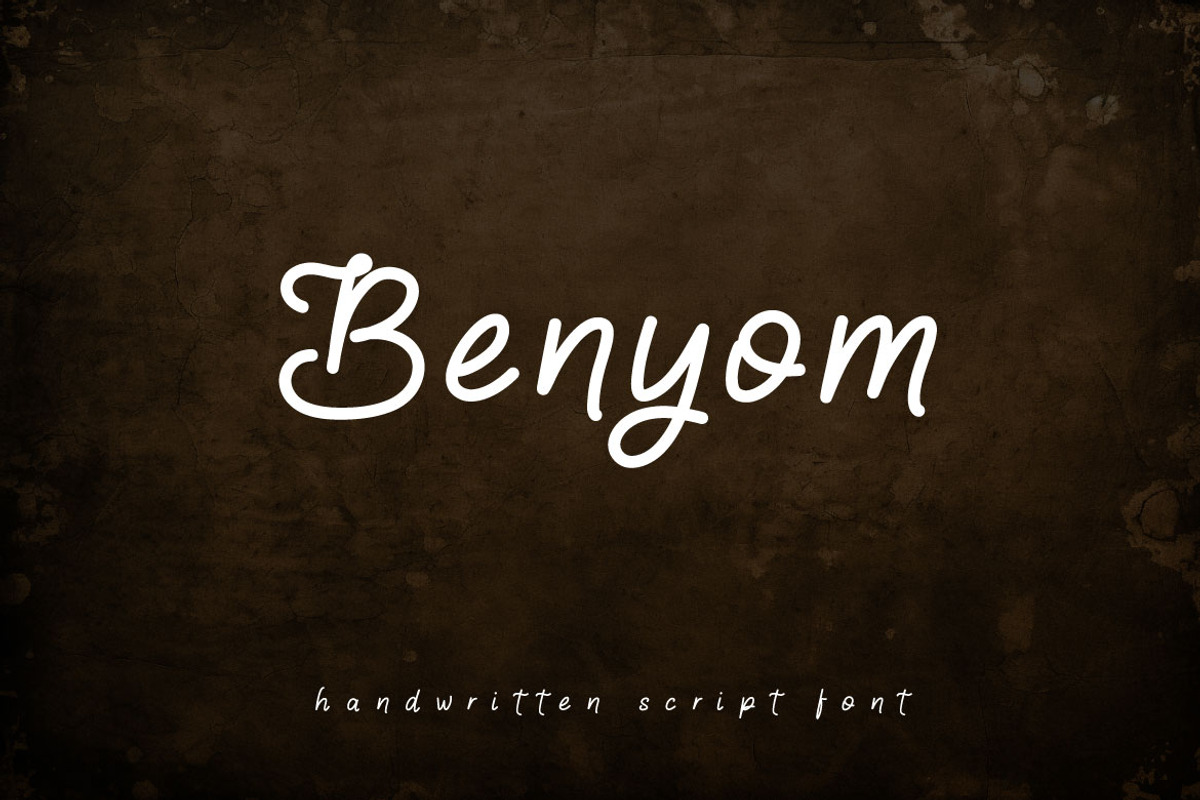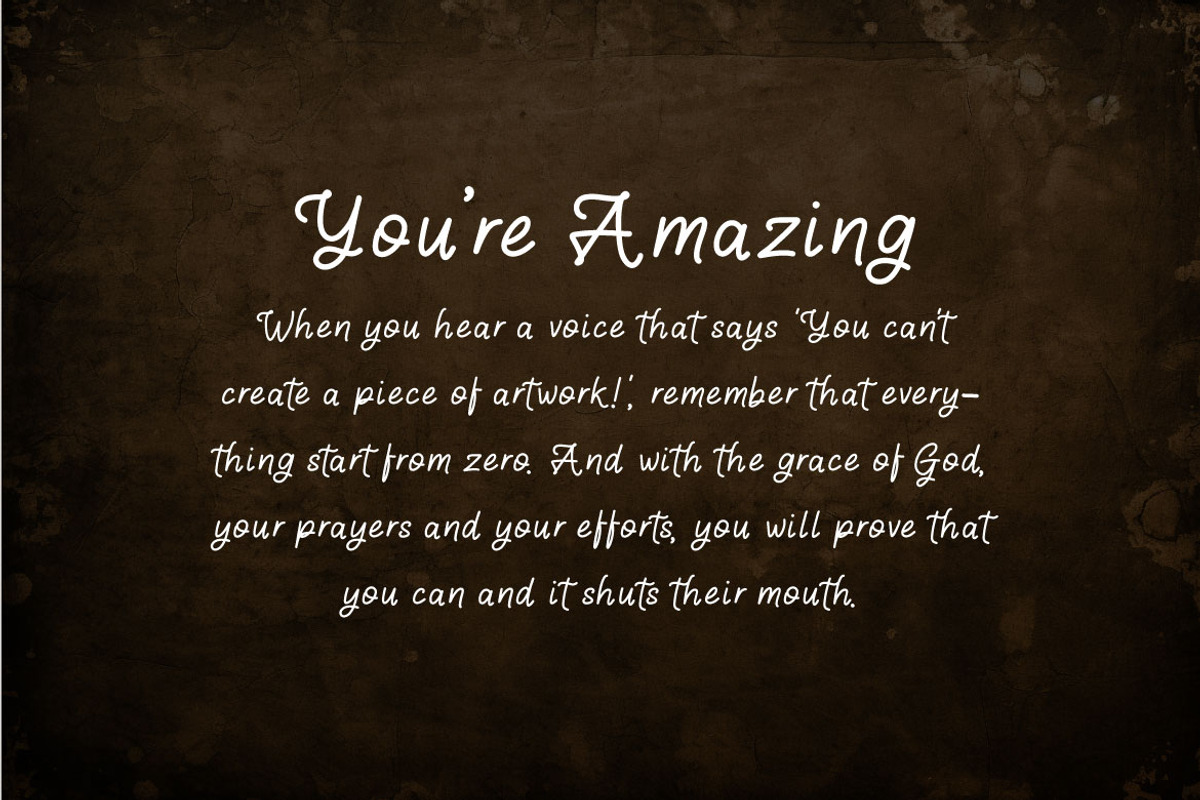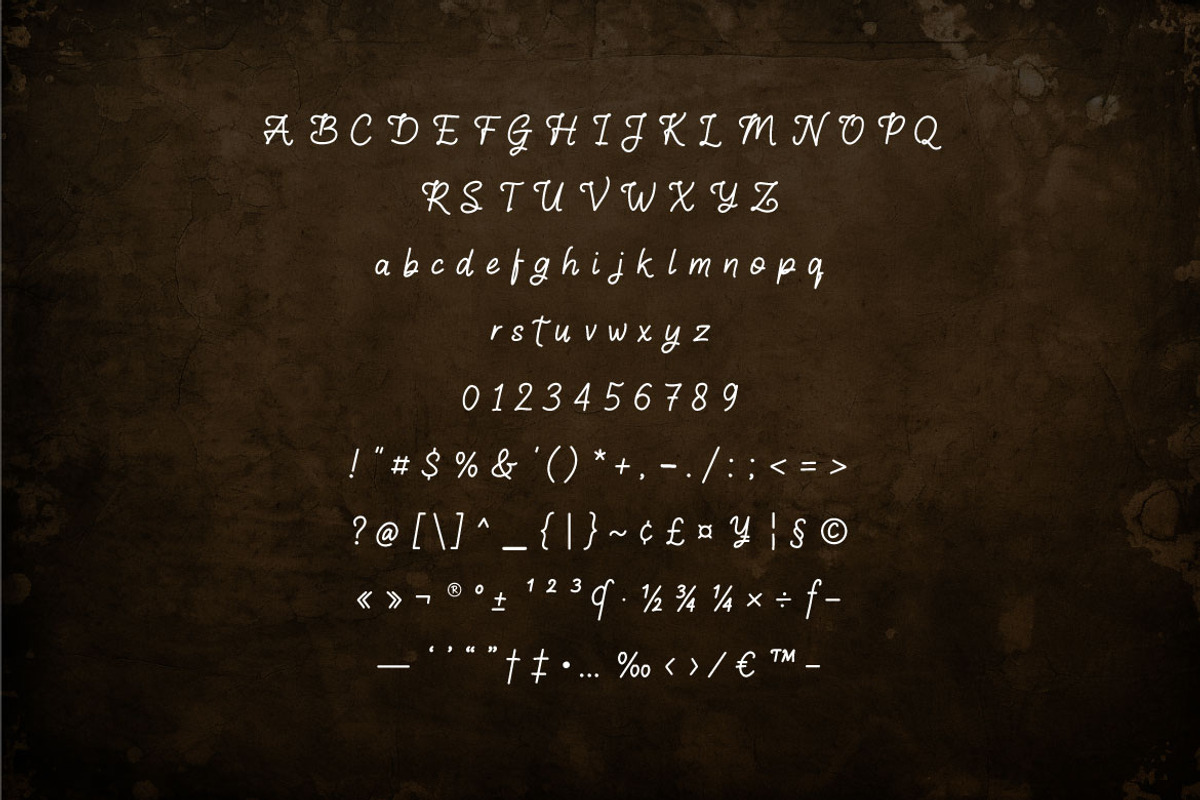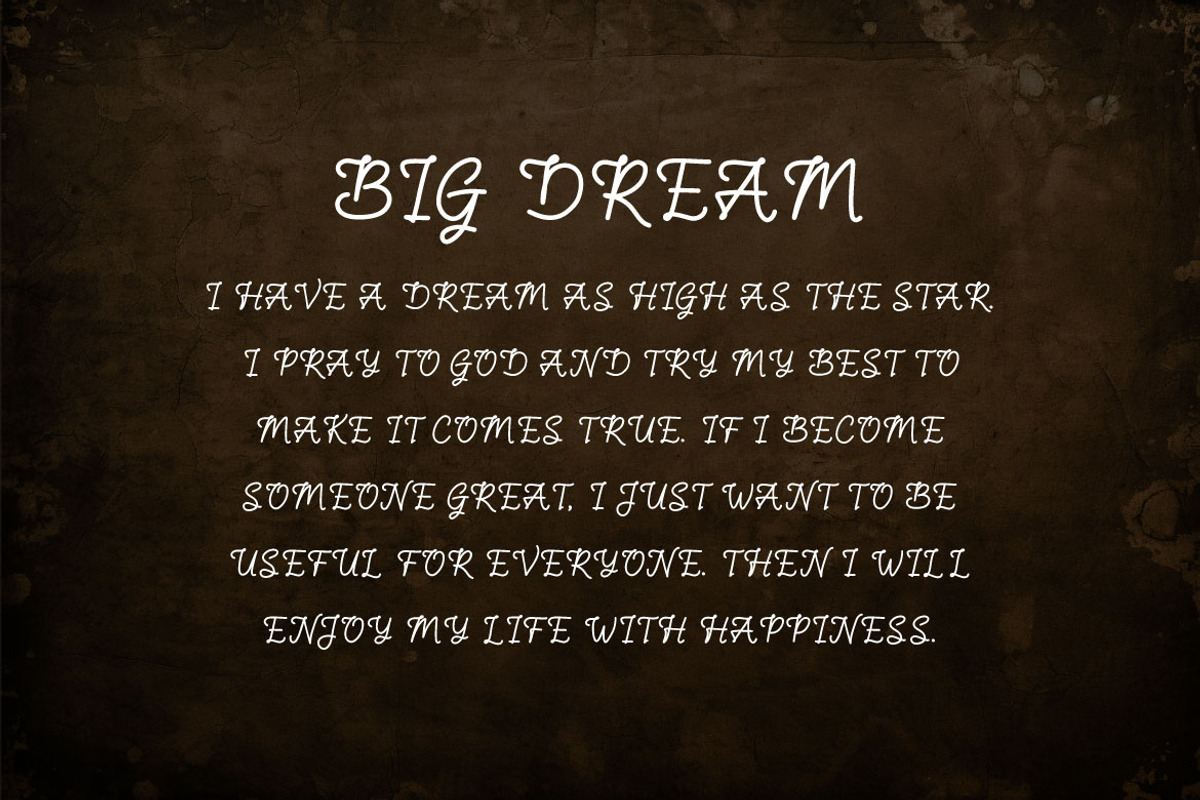
Benyom - Handwritten Script Font
Hello! Benyom is a simple handwritten script font. Benyom can be used in any works such as flyer, book title, advertisement, social media content, logo and many more.